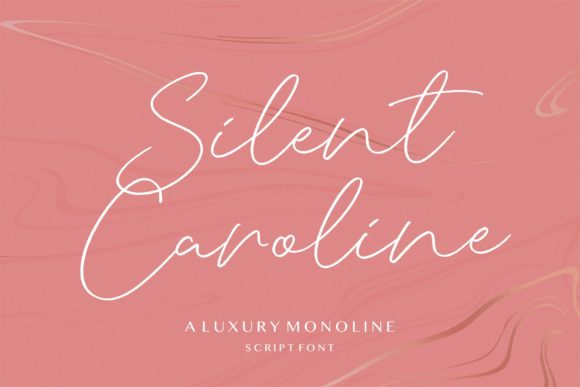
Unleash Creativity with Silent Caroline: A Handwritten Font for Makers
As I sat at my desk, surrounded by a sea of paper and ink, I was struck by an idea. I needed a font that would bring my candle labels to life, something elegant yet personal. That's when I discovered Silent Caroline, a thin and elegant handwritten font that perfectly captured the charm and grace I was looking for.
A Font with Personality and Charm
Silent Caroline is not just any font; it's a typeface that exudes a unique personality. Its delicate, flowing lines and subtle variations give it a handcrafted feel, making it ideal for adding a touch of sophistication to any project. Whether you're designing a set of wedding invitations or creating a line of boutique tags, Silent Caroline adds a special, almost whimsical, quality to your work.
Perfect for Handmade Labels and Stickers
I started by using Silent Caroline on my candle labels. The font's graceful curves and slender strokes made the text stand out beautifully against the soft, pastel backgrounds. It was exactly what I needed to make my candles look both professional and inviting. Next, I moved on to testing some sticker designs. The font's readability, even at smaller sizes, was impressive, making it perfect for small stickers and product labels.
Elevate Your Greeting Cards and Invitations
With the holidays approaching, I decided to create a set of greeting cards and invitations. Silent Caroline added a touch of elegance to the seasonal messages, making each card feel like a personalized, heartfelt gift. The font's ability to handle both short phrases and longer text made it versatile for all types of card designs, from simple "Happy Birthday" wishes to more elaborate wedding invitations.
Creating Stunning Wall Art and Printables
Next, I ventured into the world of printable wall art. Silent Caroline transformed my designs, giving them a modern yet classic look. The font's clean lines and artistic flair made it easy to create beautiful, ready-to-print pieces that could be used in a variety of settings, from home decor to office spaces. I also created a series of planner pages, where the font's legibility and style made the pages both functional and visually appealing.
Branding and Packaging Design
One of the most significant ways Silent Caroline has enhanced my work is through branding and packaging design. I used the font to create a cohesive and memorable brand identity for my shop. From the logo to the product tags, Silent Caroline provided a consistent and recognizable look. The font's versatility allowed me to use it across different materials, including mugs, tote bags, and signs, ensuring that every item felt part of the same family.
Font Pairing and Readability Tips
To maximize the impact of Silent Caroline, I paired it with a clean sans serif font for a balanced and modern look. This combination worked well for both digital and print projects, enhancing the overall aesthetic without overwhelming the reader. For small stickers and product labels, I recommend using a slightly larger size to ensure readability. When working with cutting machines, always check the font's included styles and alternates to find the best fit for your project.
Final Thoughts on Using Silent Caroline
Incorporating Silent Caroline into my creative process has been a game-changer. Its elegant and handwritten style adds a unique and personal touch to every project, whether it's a candle label, a greeting card, or a piece of wall art. Before using the font for commercial projects, be sure to check the included styles, file formats, and licensing details to ensure you have everything you need. With Silent Caroline, the possibilities are endless, and the results are always stunning.